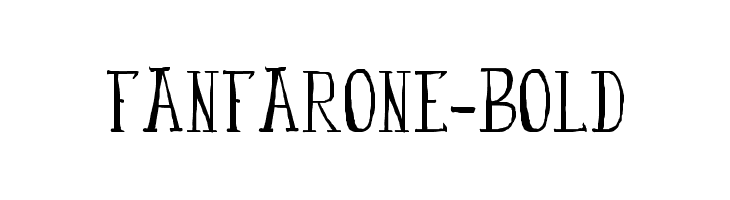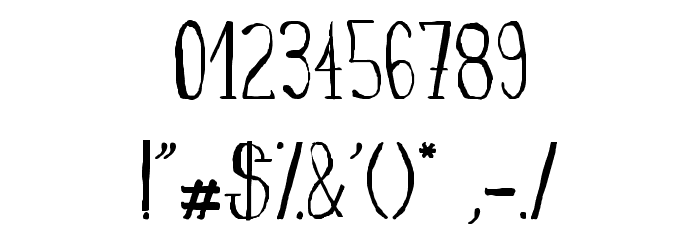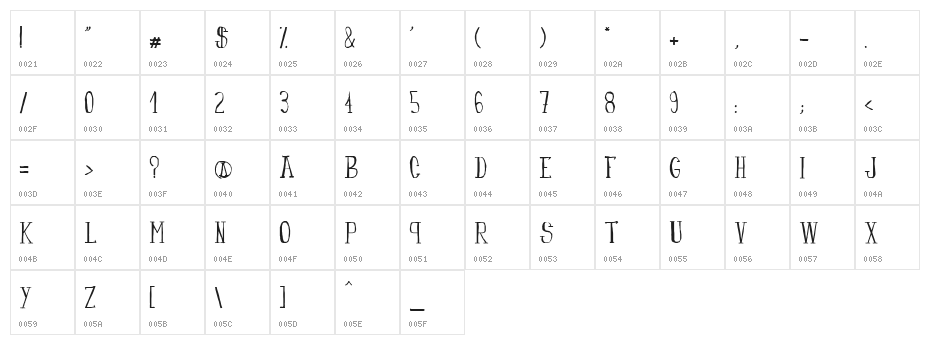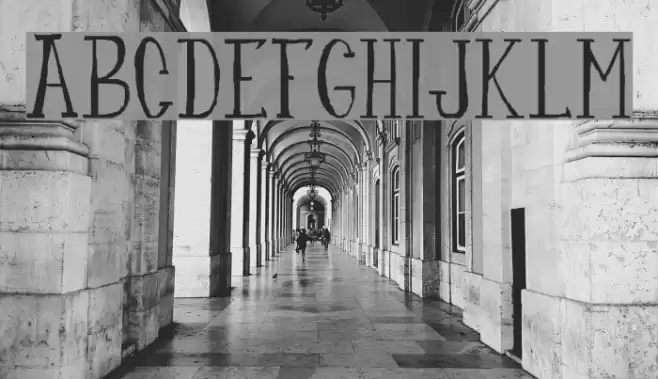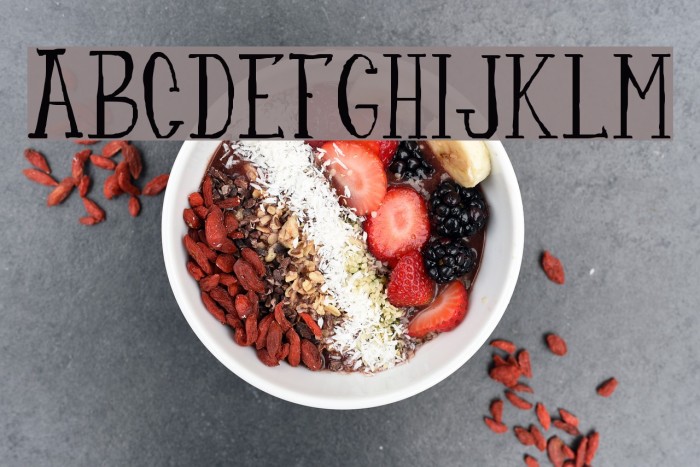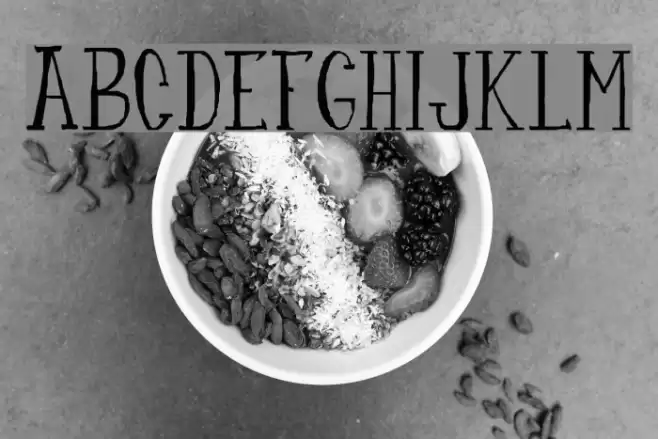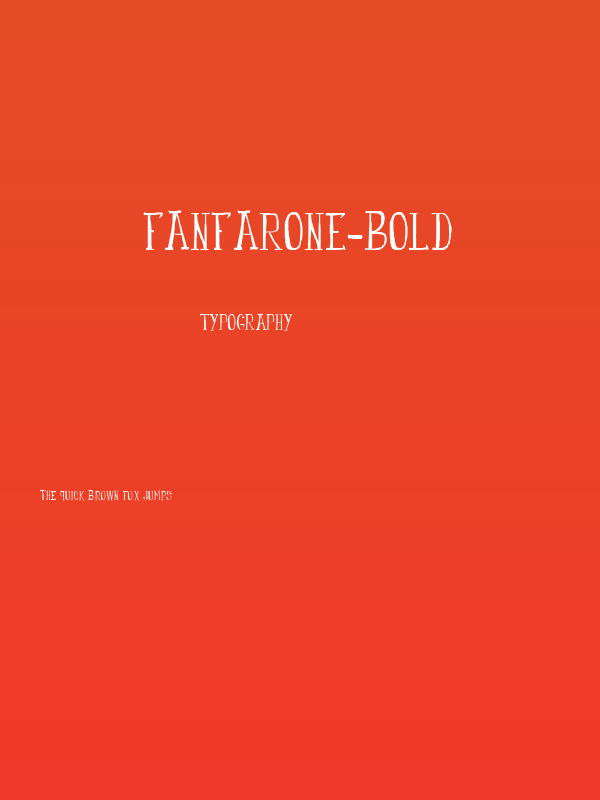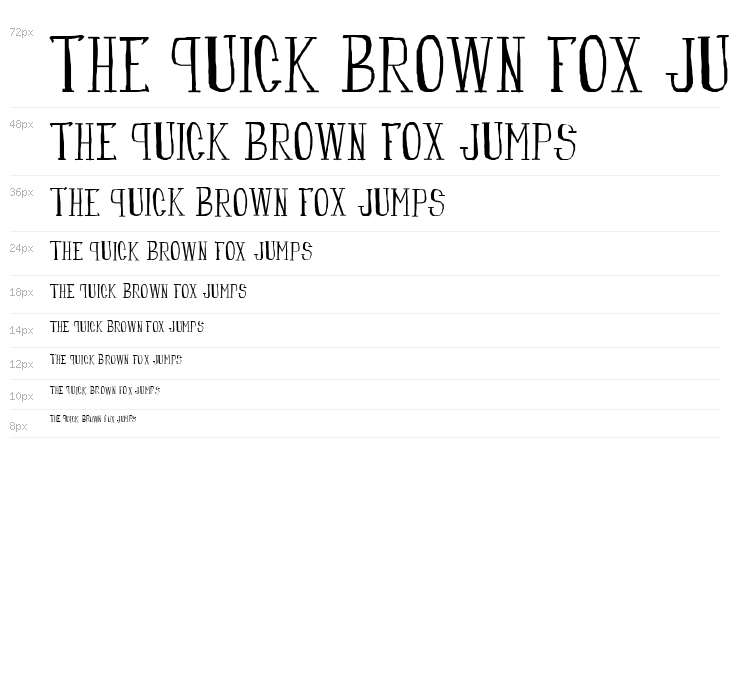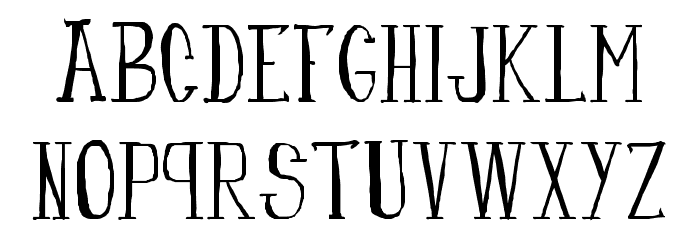
fanfarone-bold Font
fanfarone-bold Description
This font exhibits a bold and decorative style with a distinct vintage flair. The uppercase letters are tall and narrow, featuring unique serifs that add a touch of elegance and sophistication. The lowercase letters maintain a consistent style, complementing the uppercase with their own intricate details. Numbers are designed to match the overall aesthetic, ensuring a cohesive look across all characters. Special characters are creatively styled, enhancing the font's decorative appeal. The font's high contrast between thick and thin strokes contributes to its striking appearance, making it suitable for eye-catching designs.
| Overall Style | Vintage, Decorative |
| Proposed Projects | Ideal for vintage-themed posters, branding, logos, and headlines that require a bold and decorative touch. |